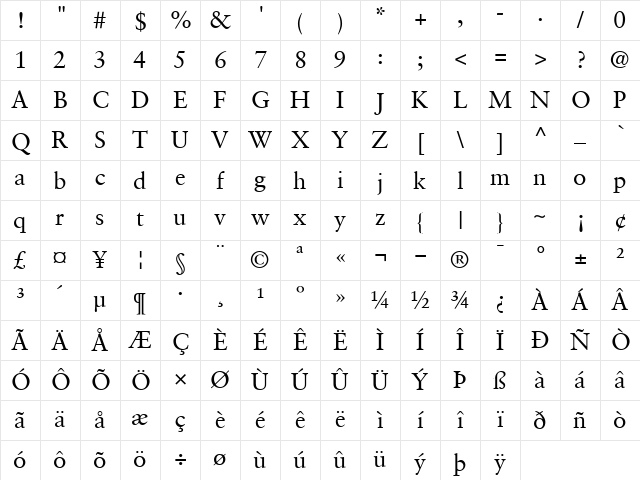
12Sabon*Roman05232 Roman
Design Context for 12Sabon*Roman05232
12Sabon*Roman05232 is a composed and adaptable typeface that performs quietly and consistently across a wide range of design contexts.
Pro Tip: Use 12Sabon*Roman05232 in both headline and body roles to test its range before committing to a single application.